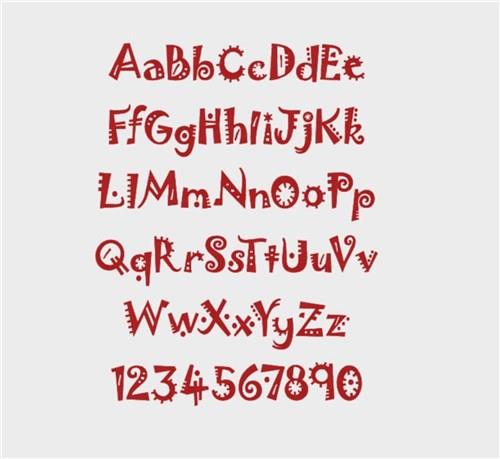
Pds jokerman Embroidery Font - Playful Decorative Letters - PES, DST & 6 formats by Artsy Knots and other embroidery fonts available at EmbroideryDesigns.com.
Artsy Knots is happy to present Pds jokerman Embroidery Font - Playful Decorative Letters - PES, DST & 6 formats machine embroidery font which has Decorative machine embroidery font with playful letters in bold red. Ideal for vibrant projects on apparel or home decor. Available in DST, EXP, HUS, JEF, PES, VIP, VP3, and XXX formats. included. If you would like to view more embroidery fonts and alphabets please search our embroidery fonts page.